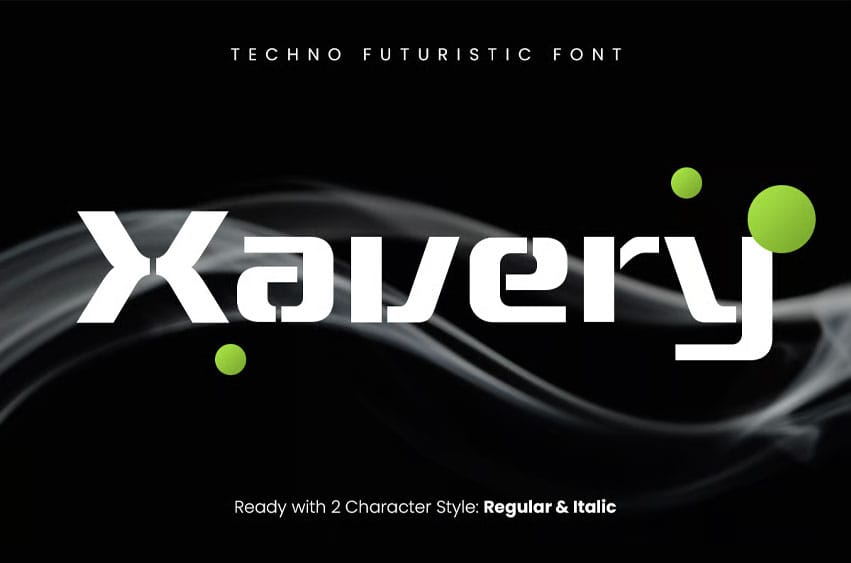
Xavery Font is a techno futuristic font built for modern digital design. Its sleek, streamlined forms and geometric precision make it the perfect choice for technology-driven branding, sci-fi visuals, and innovative interfaces.
Designed to evoke the future, XAVERY brings an advanced, digital style to your projects. Whether you’re creating for tech startups, gaming, or futuristic advertising, this font delivers a bold, clean look with sharp edges and contemporary style. The streamlined letterforms make XAVERY perfect for logos, titles, high-tech campaigns, and digital media.
XAVERY – Techno Futuristic Font Features
- Sleek, high-tech letterforms with futuristic appeal
- Ideal for digital branding, sci-fi, and technology themes
- Includes uppercase, lowercase, numerals, and punctuation
- Clean, bold, and modern design
- OpenType features for advanced typographic styling
Step into the future with XAVERY – the perfect font for tech, digital, and futuristic design.